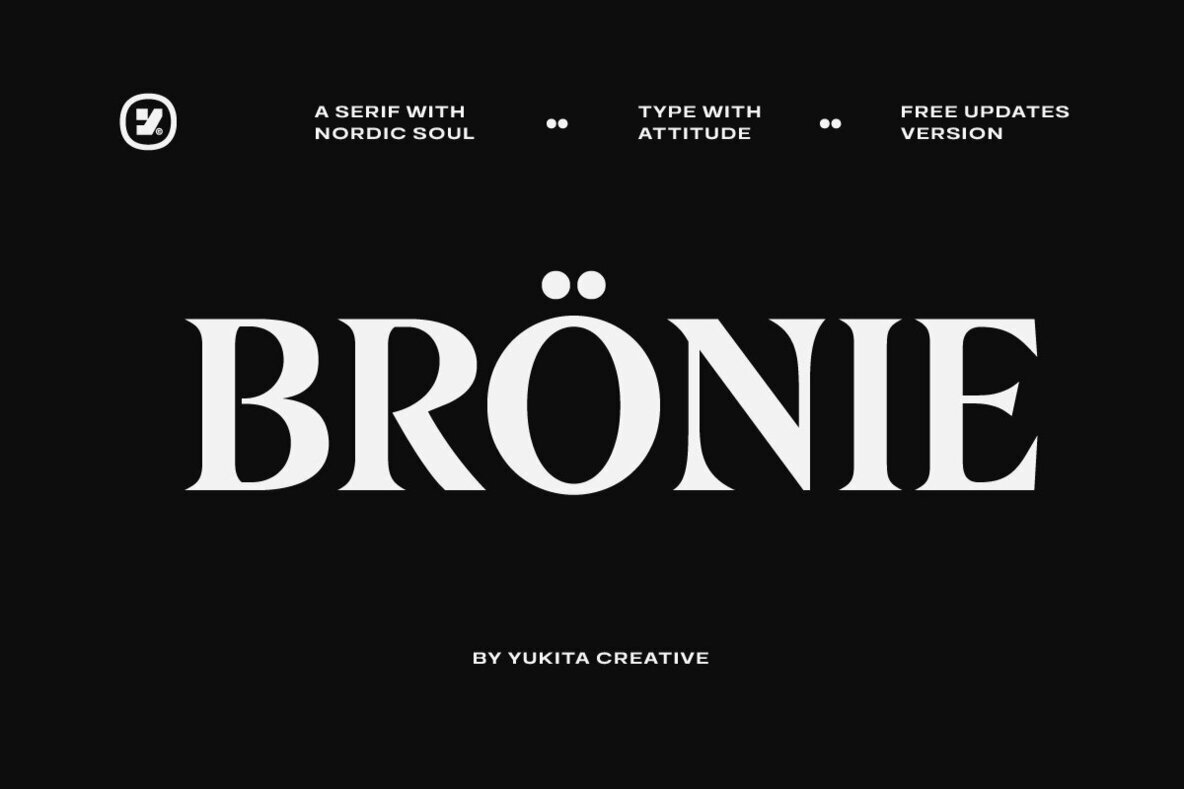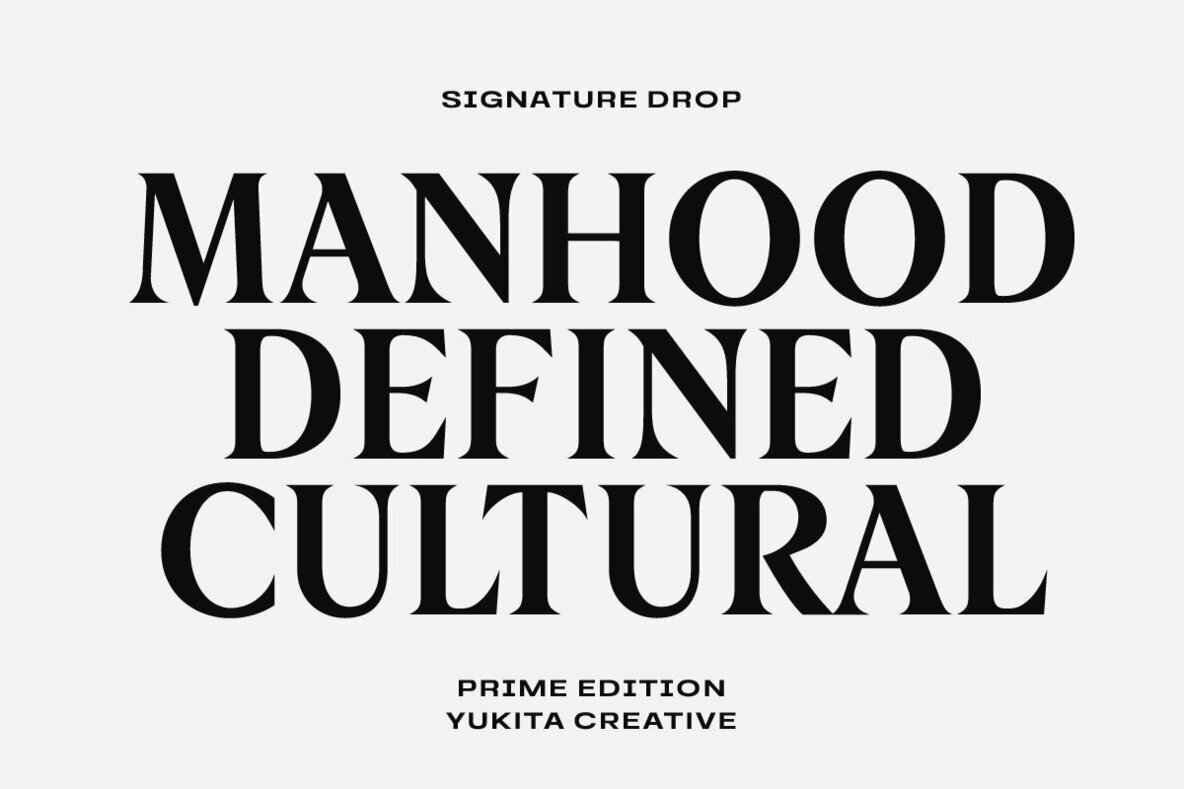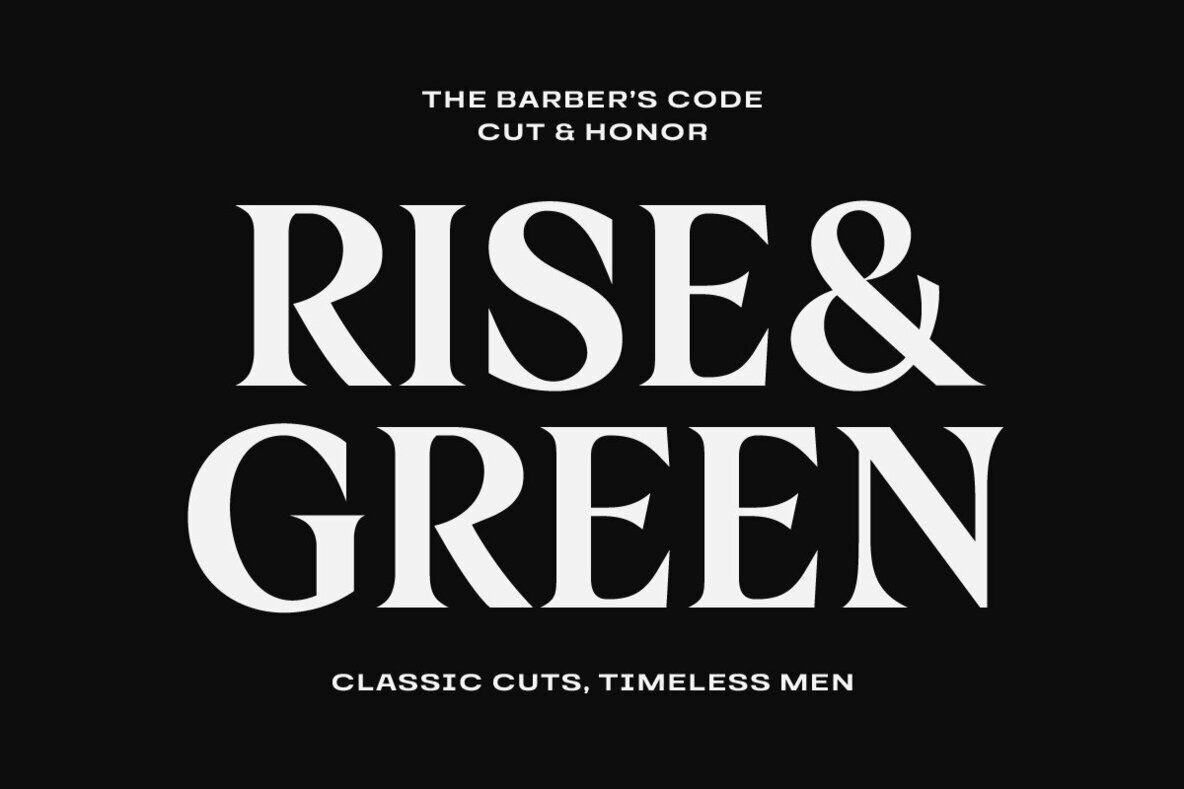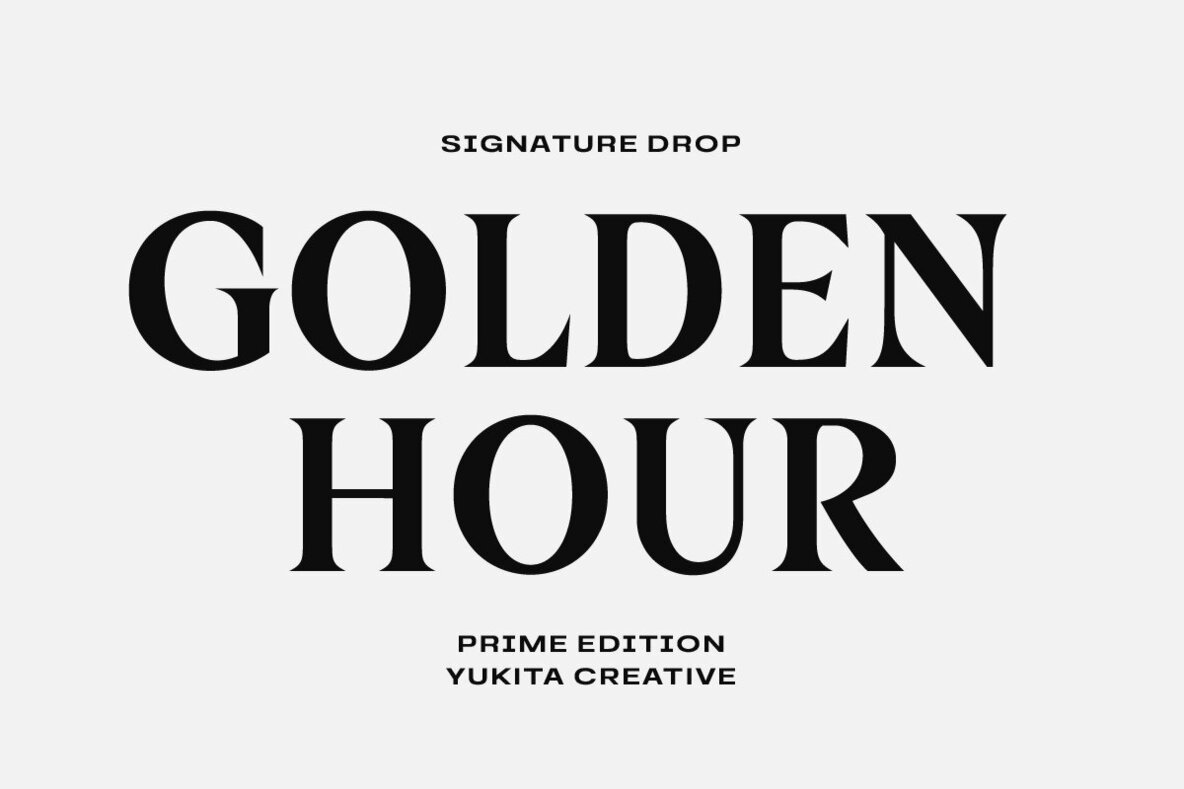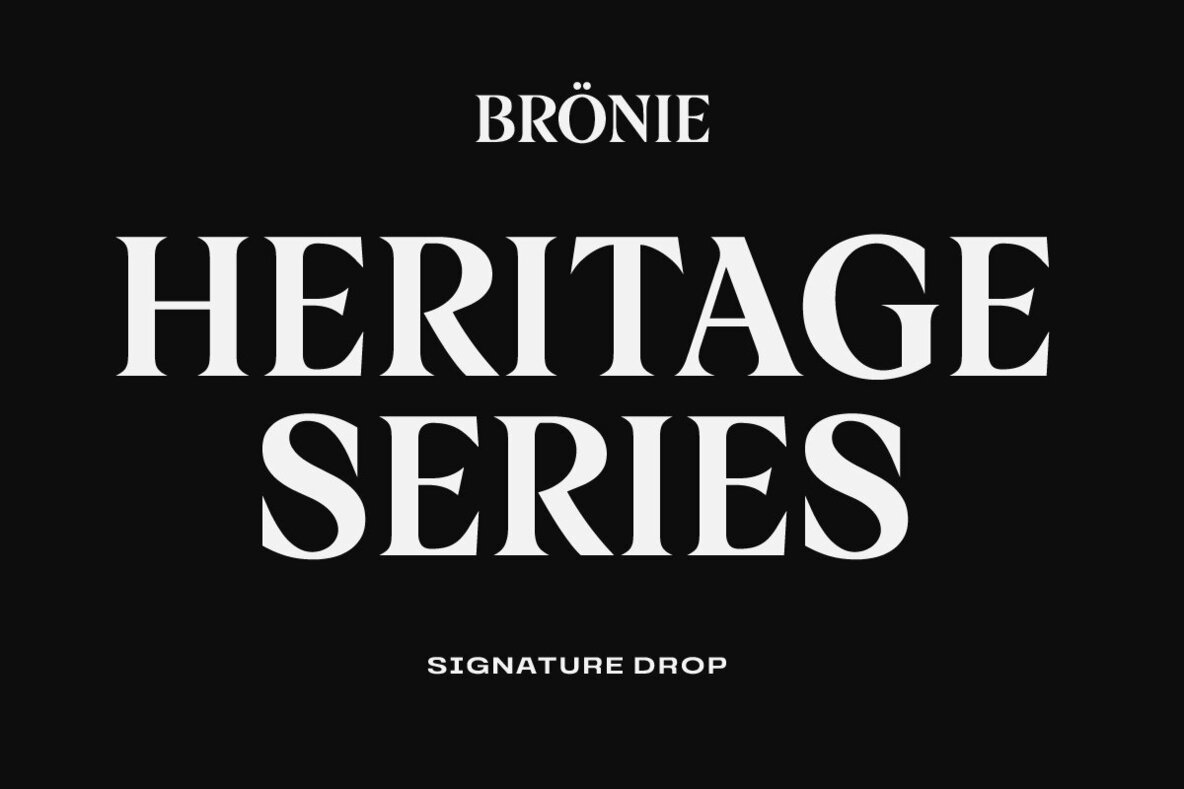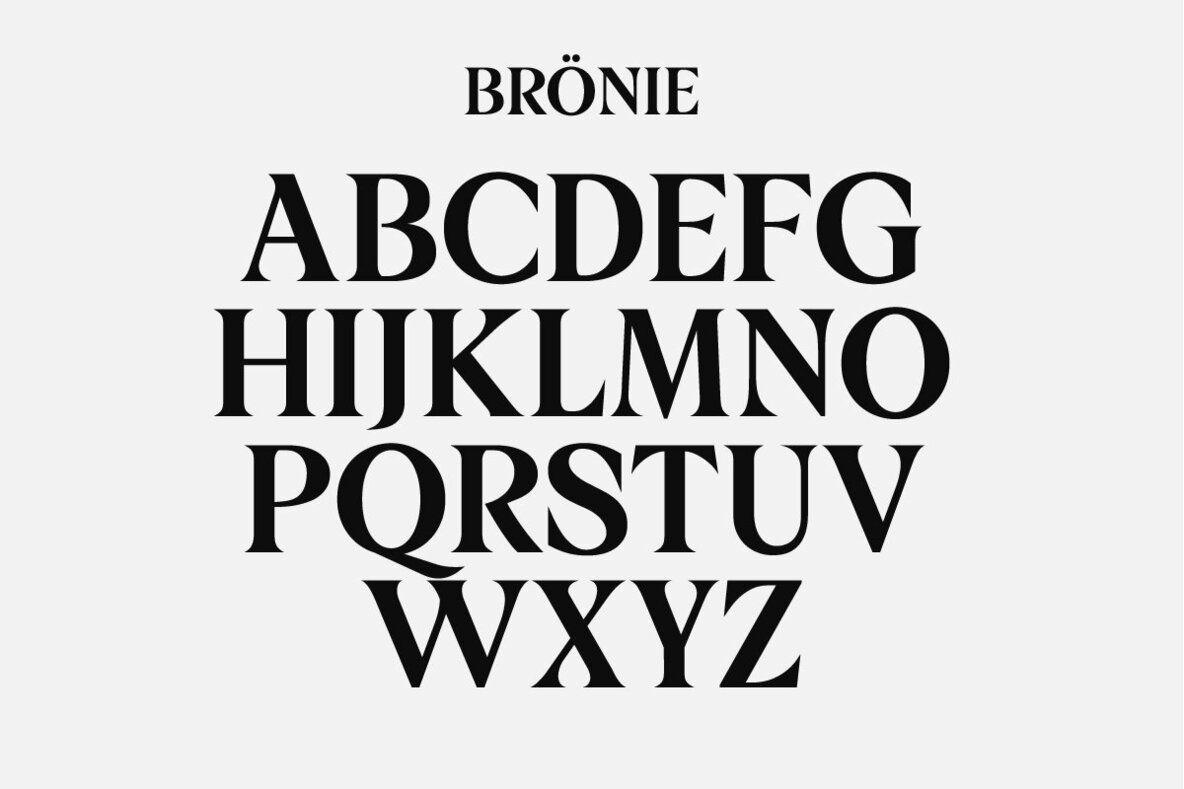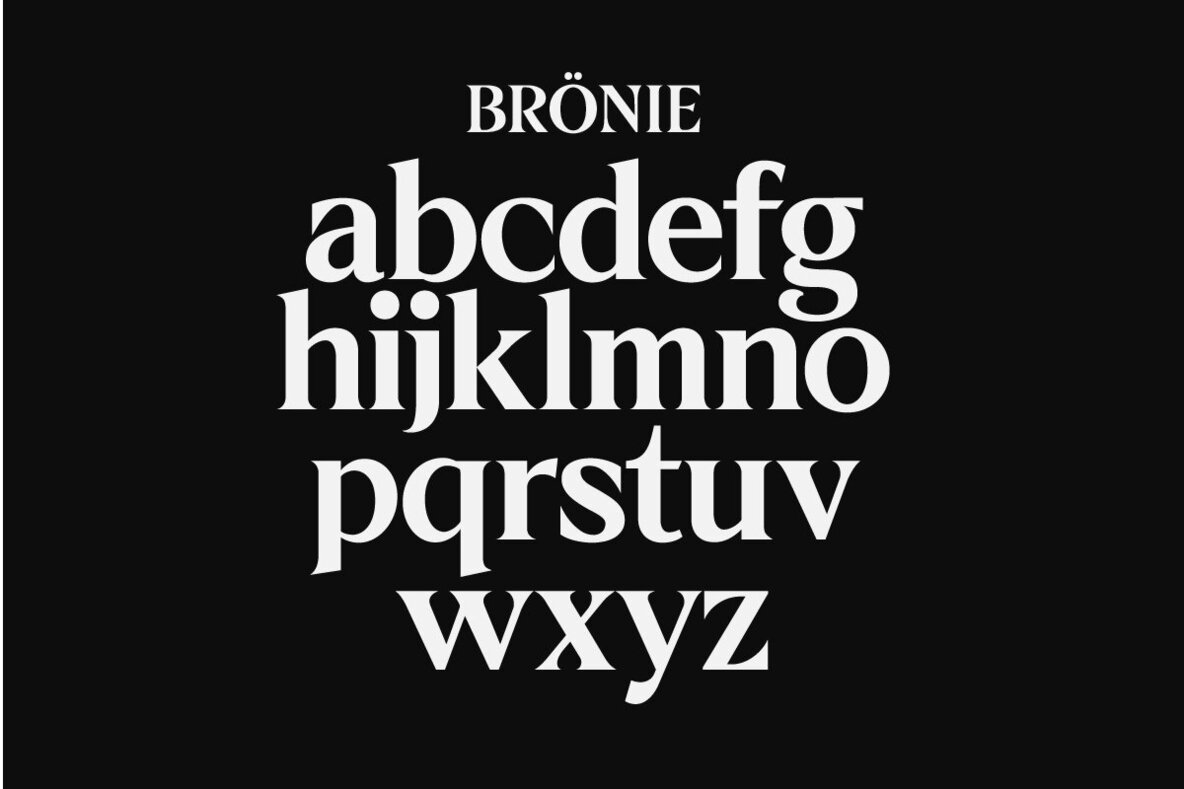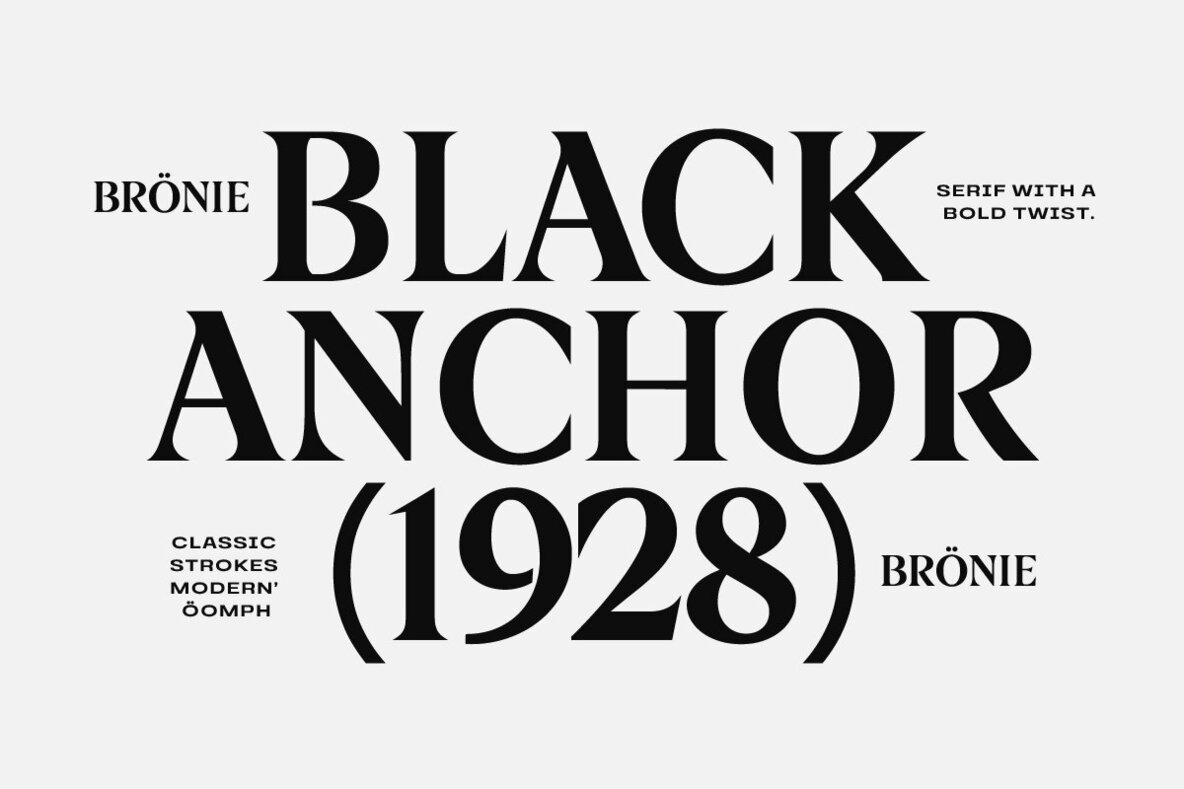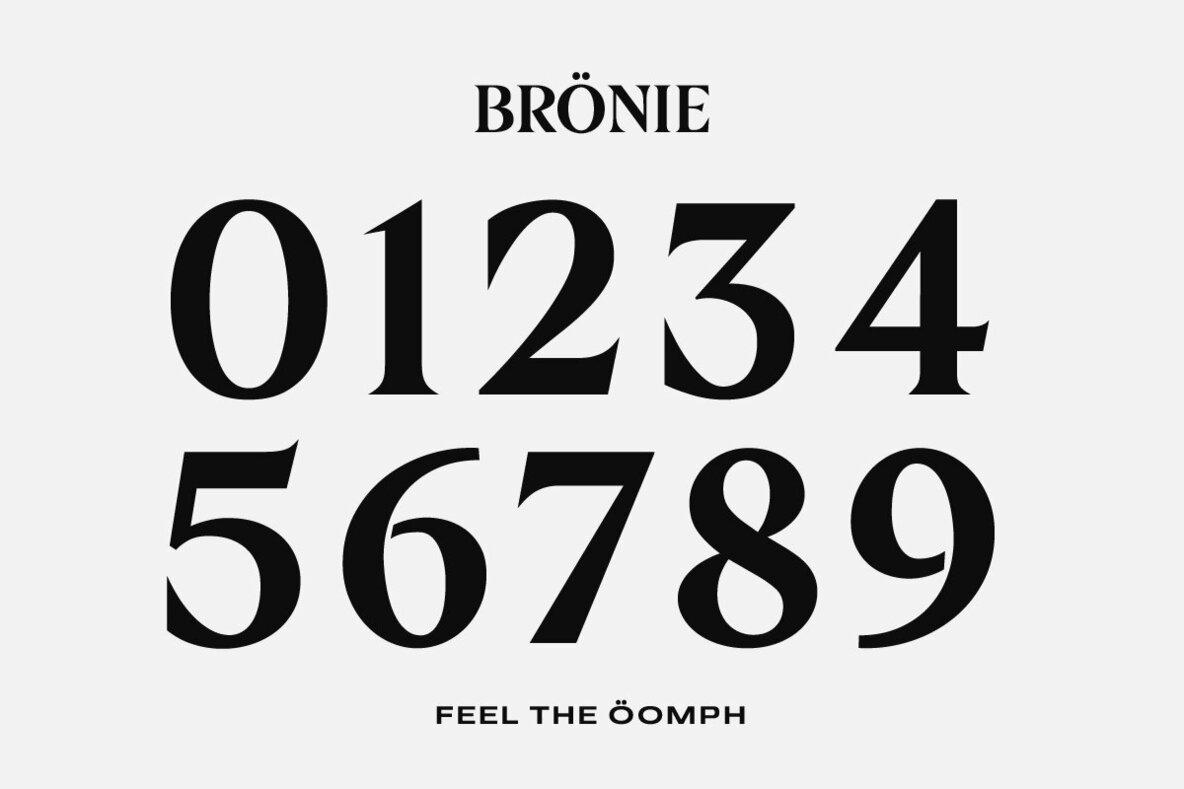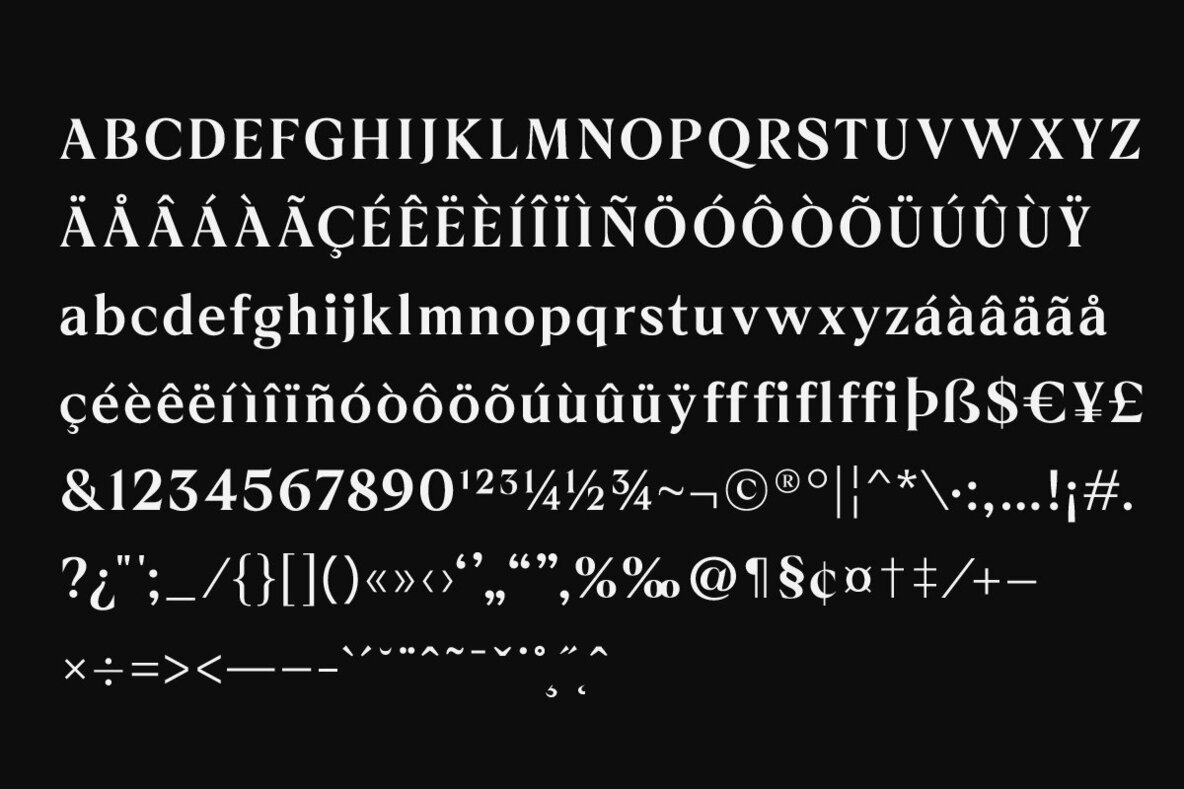
Bronie Font
The Bronie serif font encapsulates the essence of timeless elegance. Its blend of classic and modern traits is meticulously crafted through clean lines and well-balanced proportions. This versatile typeface suits an array of design applications.Bronie: A Refined Serif for Versatile Use